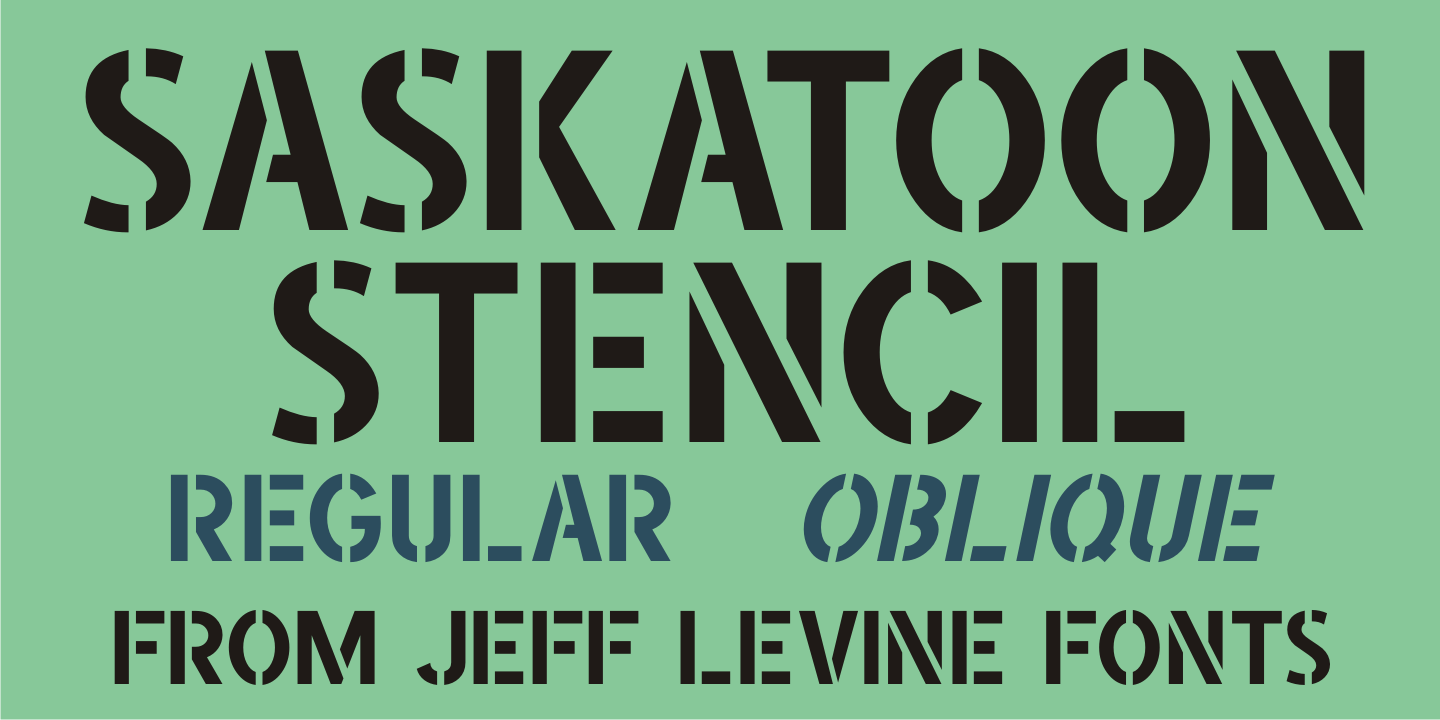
Saskatoon Stencil
Inspiration for font design takes on many shapes and forms. It can be vintage source material, visualized concepts or simply suggestions made by others.
In an email conversation with Kevin Redekop (the Principal Designer for FabArts Creative Fabricators in Canada) who had purchased a number of Jeff Levine Fonts, a sample sketch of a desired stencil font was provided. This set the wheels into motion for the drawing and production of Saskatoon Stencil JNL.
Saskatoon Stencil includes 213 glyphs.